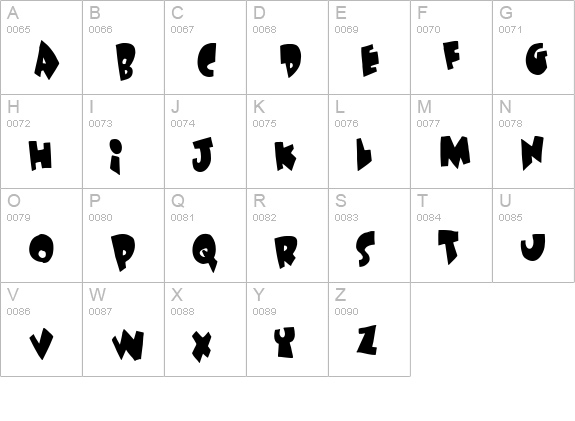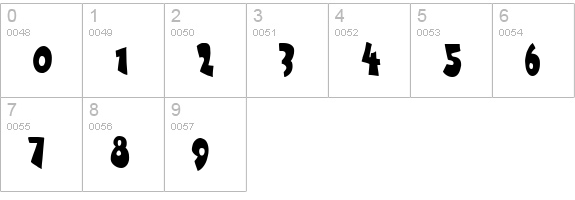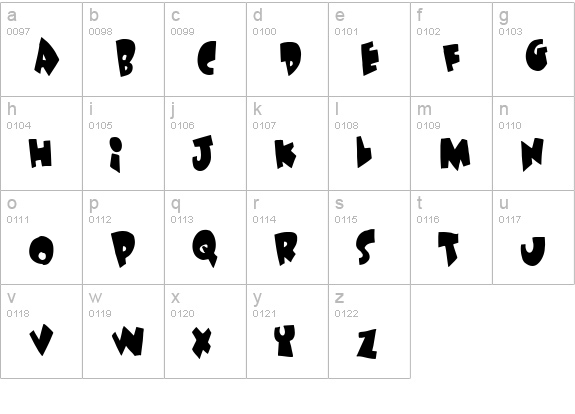
Under Attack font is a powerful and bold display typeface that exudes strength and resilience. With its sharp edges and intense design, this font is perfect for adding an edgy and aggressive touch to your designs. Whether you're creating a poster for a rock concert or designing a logo for a sports team, Under Attack font will make a bold statement. This font is not only visually striking but also highly versatile. It can be used in a variety of design projects, from branding and packaging to headlines and social media graphics. Its eye-catching style is sure to capture the attention of your audience and convey your message with impact. One of the best parts about Under Attack font is that it is completely free. Yes, you heard it right! You can freely download this font at FontsMarket.com. This means that you can use it in both personal and commercial projects without any restrictions. So, whether you're a professional designer or someone who enjoys experimenting with typography, Under Attack font is a must-have in your font collection. Don't miss out on the opportunity to add this thrilling and captivating font to your design arsenal. Download Under Attack font for free at FontsMarket.com and start creating stunning and impactful designs today.